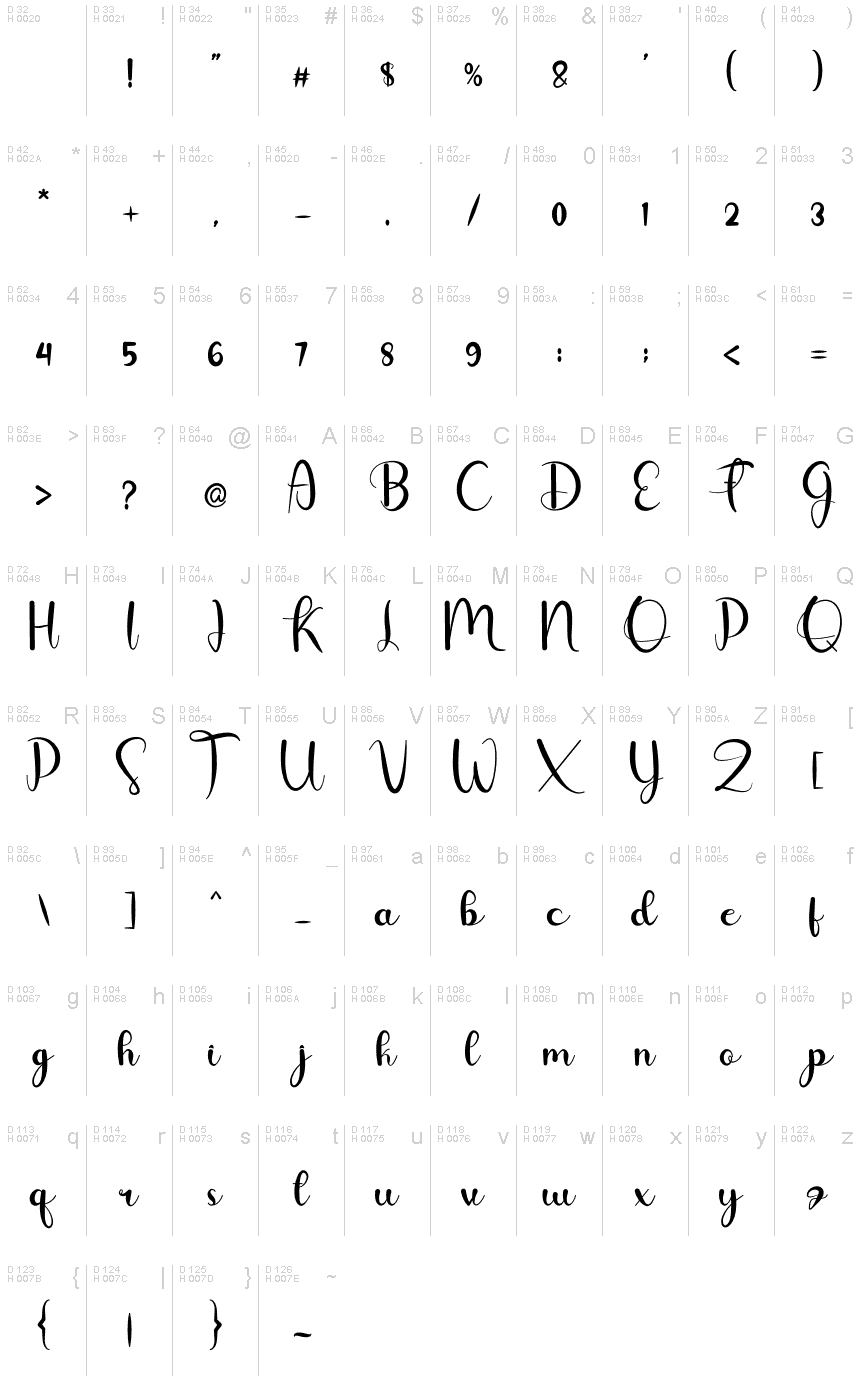
Oyster
Oyster is a stunning calligraphy font designed by Fahmi Hayat. Featuring swashes and curves that evoke a sense of elegance and sophistication, Oyster is perfect for any project that needs a touch of refinement. This semi-bold font is suitable for wedding invitations, fancy restaurant menus, high-end fashion magazines, or any other design that requires an air of luxury. Whether you're designing for print or digital media, Oyster's unique style will make your project stand out from the crowd. With its bold lines and delicate flourishes, Oyster is sure to impress even the most discerning typography enthusiast.